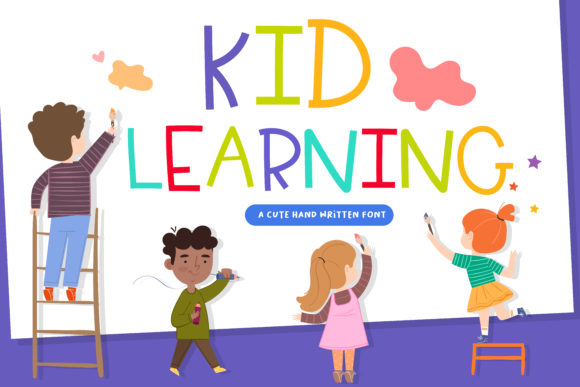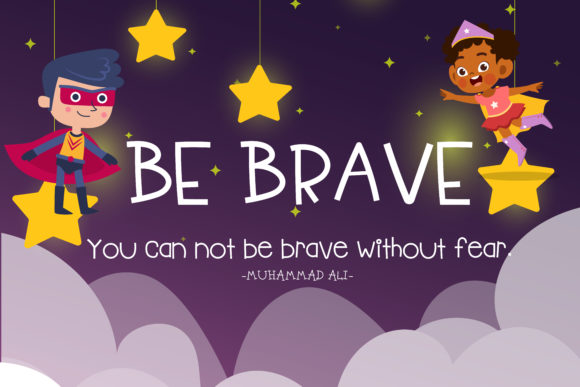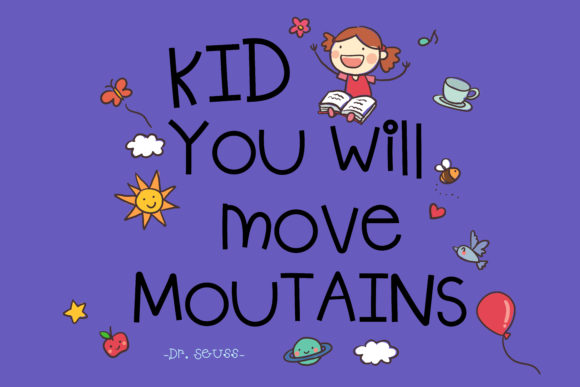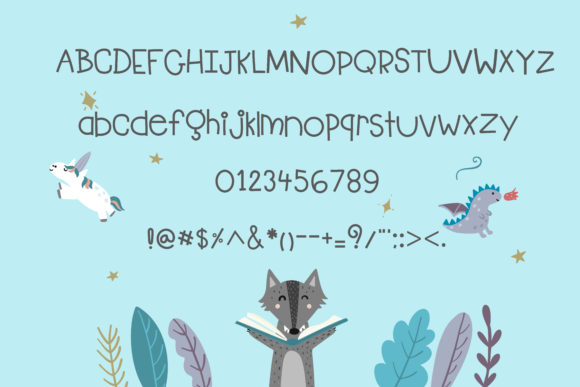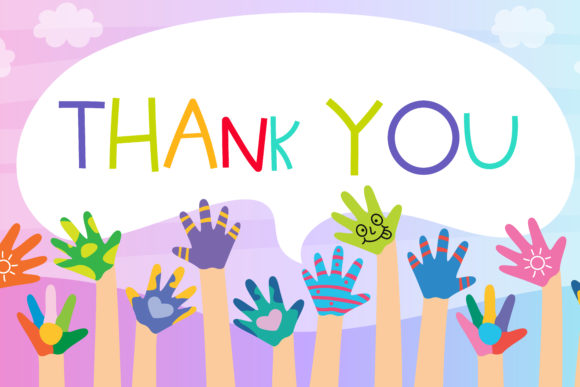
Kid Learning Font
Kid Learning is a brand new handwritten font.
Are you looking for cute handwritten font for your project? This Font is perfect for kid greeting cards, t-shirt prints, fashion artworks or just play around.